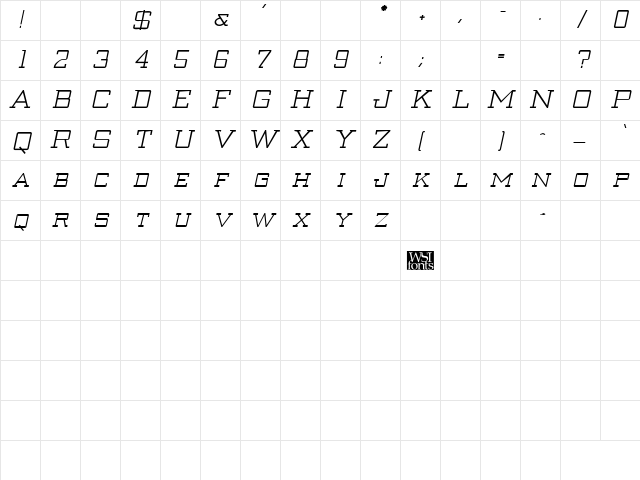
Creenay Bold Italic
Creenay Family
Design Context for Creenay
Creenay is a composed and adaptable typeface that performs quietly and consistently across a wide range of design contexts. The slanted form adds forward momentum and visual energy. Its bold stroke weight gives it real presence on the page.
Pro Tip: Use Creenay for emphasis, pull quotes, and subheadings where its slanted energy can add rhythm to the layout.